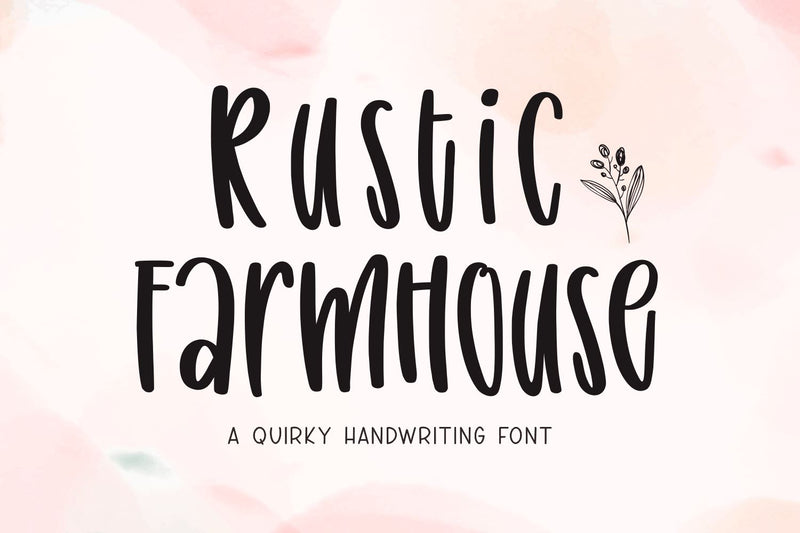
Rustic Farmhouse
Rustic Farmhouse is cute casual brush font.
It is a trendy brush display font.
This font is ideal for crafting, branding, decorating, farmhouse designs, shirts, SVG designs, branding, blogs, logos, invitations, and more!
Also with their help, you can create a logo or beautiful frame for your home.
Or just use it for your business, book covers, stationery, marketing, magazines, and more.
Fall in love with its incredibly versatile style and use it to create spectacular designs!
Use this font for any crafting project that requires a personalized look!